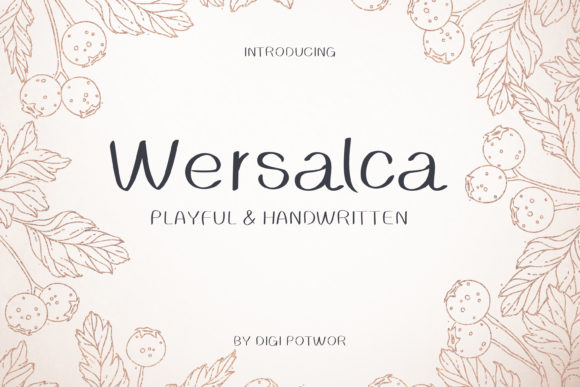
Dive into the world of elegance and sophistication with Wersalca, a breathtaking handwritten font crafted with precision and creativity. Wersalca belongs to the enchanting script font family, a timeless style that exudes grace and charm. This font is meticulously designed with beautiful and well-balanced characters, ensuring harmony and visual appeal in every application.
As the best font for Latin script, Wersalca offers a rich and versatile range of characters, supporting a variety of languages and scripts. Its delicate strokes and flowing curves add a personal touch to your designs, making them stand out from the ordinary. Whether you're a graphic designer, a web designer, or a passionate DIY enthusiast, Wersalca is the perfect choice to elevate your creative projects.
With Wersalca, you can effortlessly create stunning logos, captivating posters, eye-catching social media posts, and elegant invitations that leave a lasting impression. Its versatility extends to branding materials, wedding stationery, and personal journaling, allowing you to express your unique style in countless ways.
But what truly sets Wersalca apart is its ability to evoke emotions and connect with your audience on a deeper level. Its delicate lines and soft curves create a sense of warmth and intimacy, inviting readers to engage with your content. In a world of digital overload, Wersalca offers a refreshing and authentic touch that resonates with your target audience.
Add Wersalca to your font collection and embark on a creative journey like no other. Let its refined beauty transform your designs, captivate your readers, and leave a lasting legacy of elegance and charm.